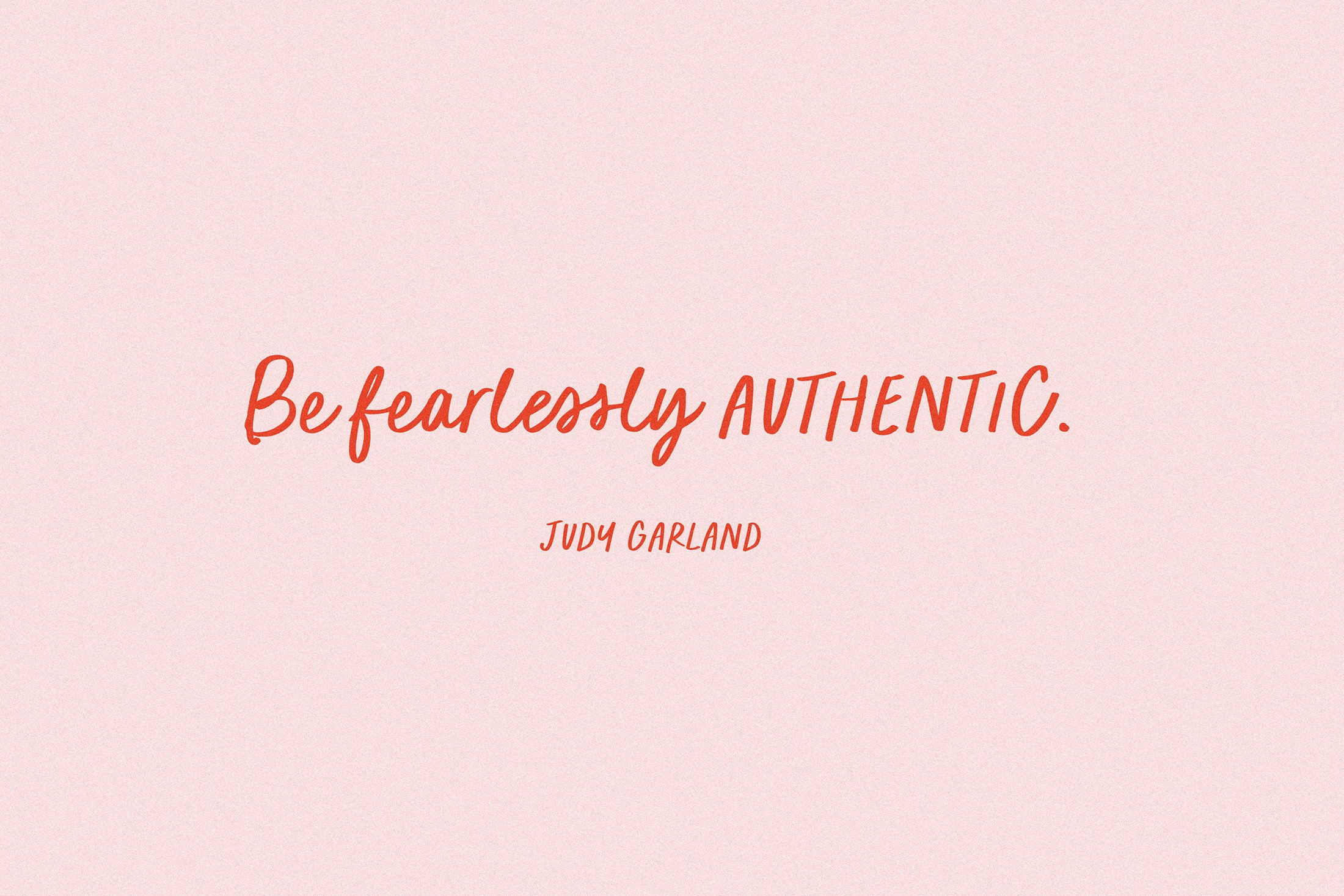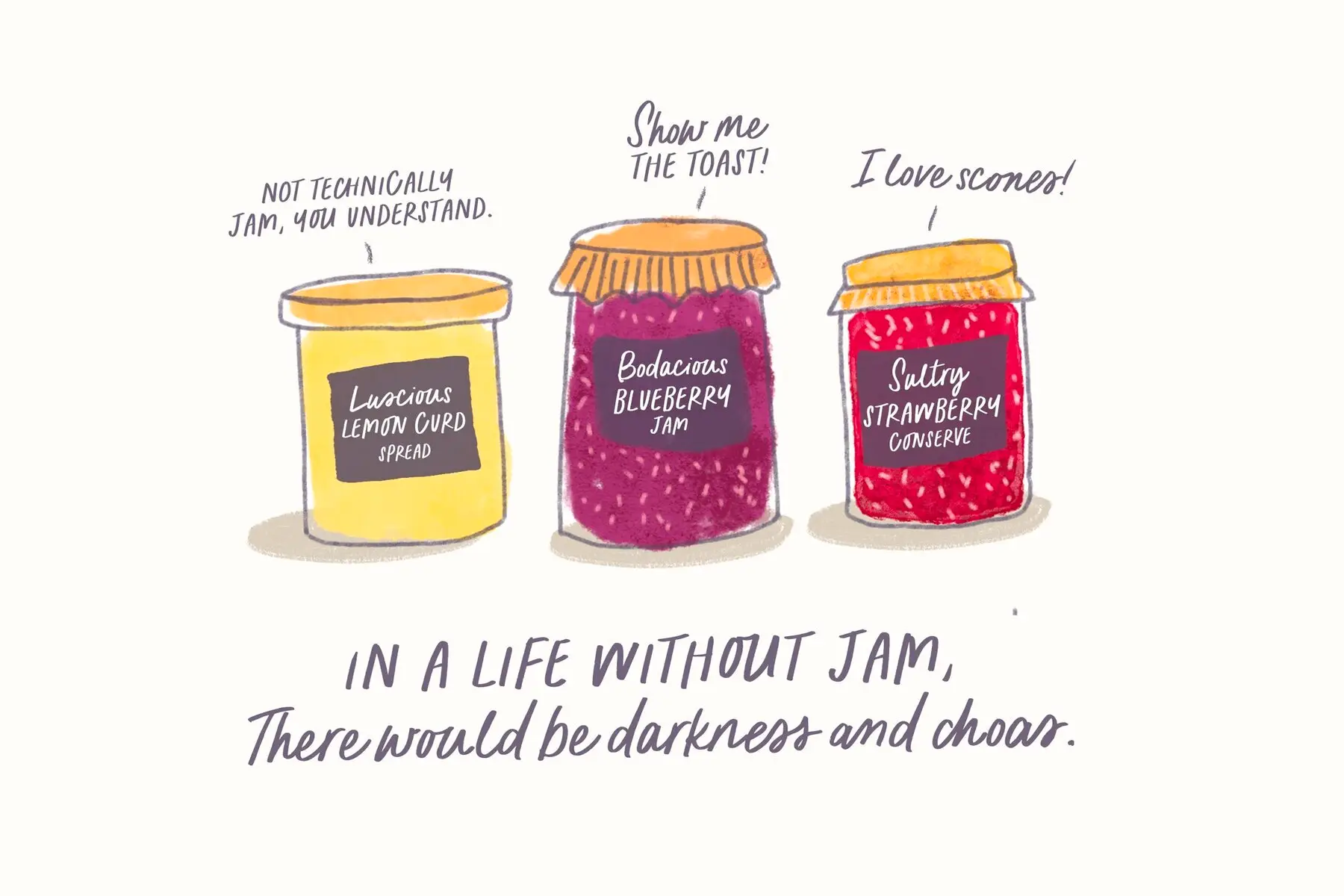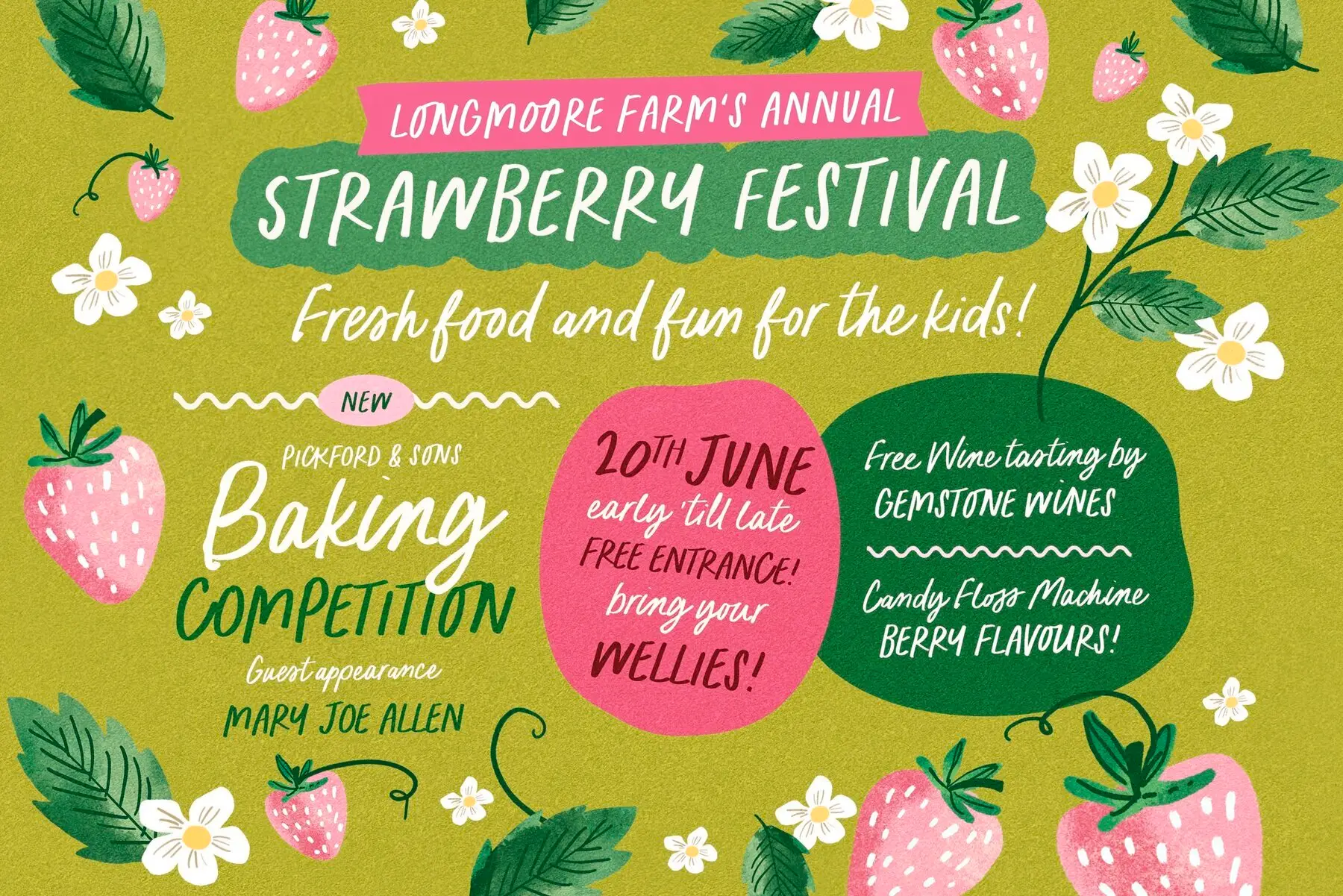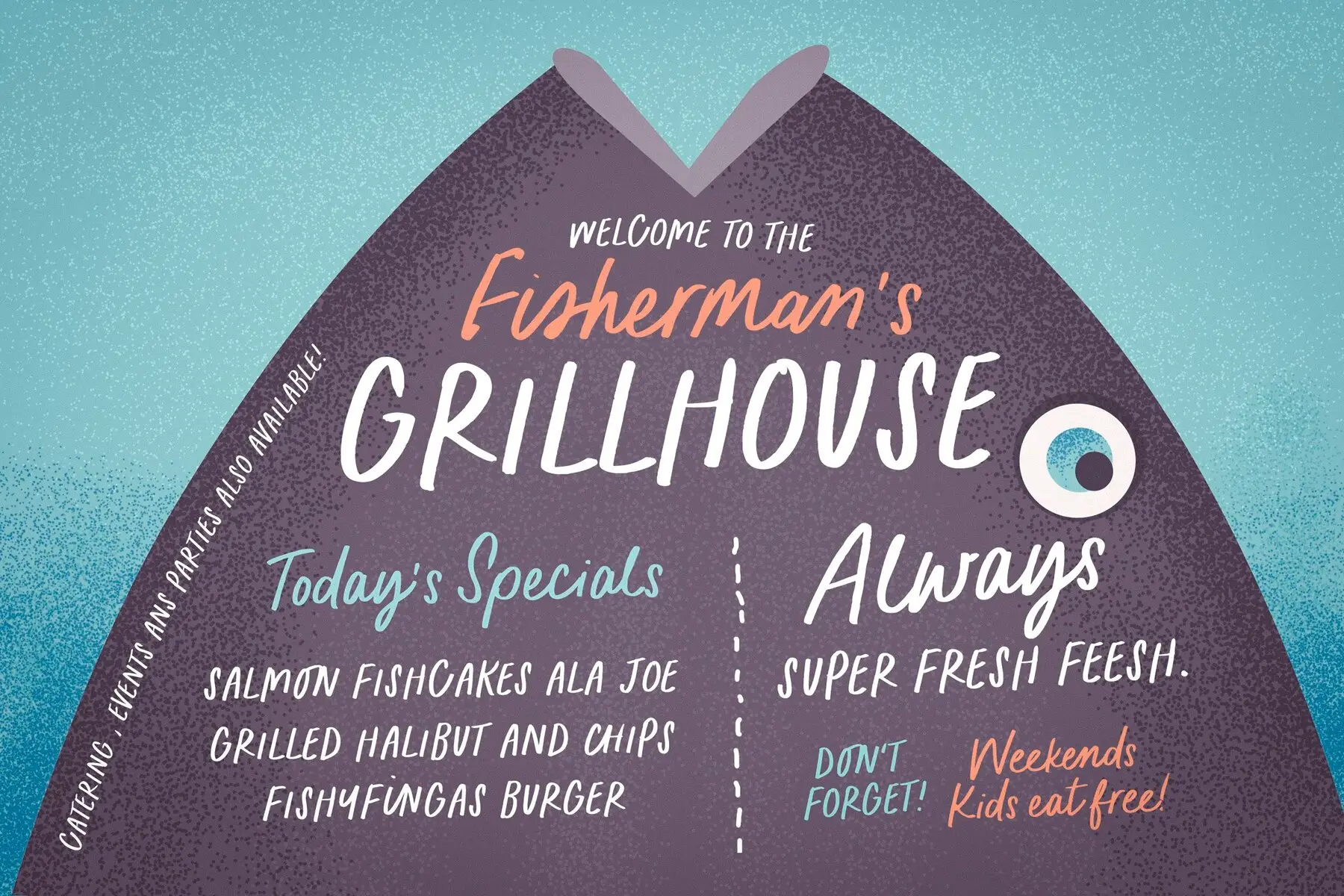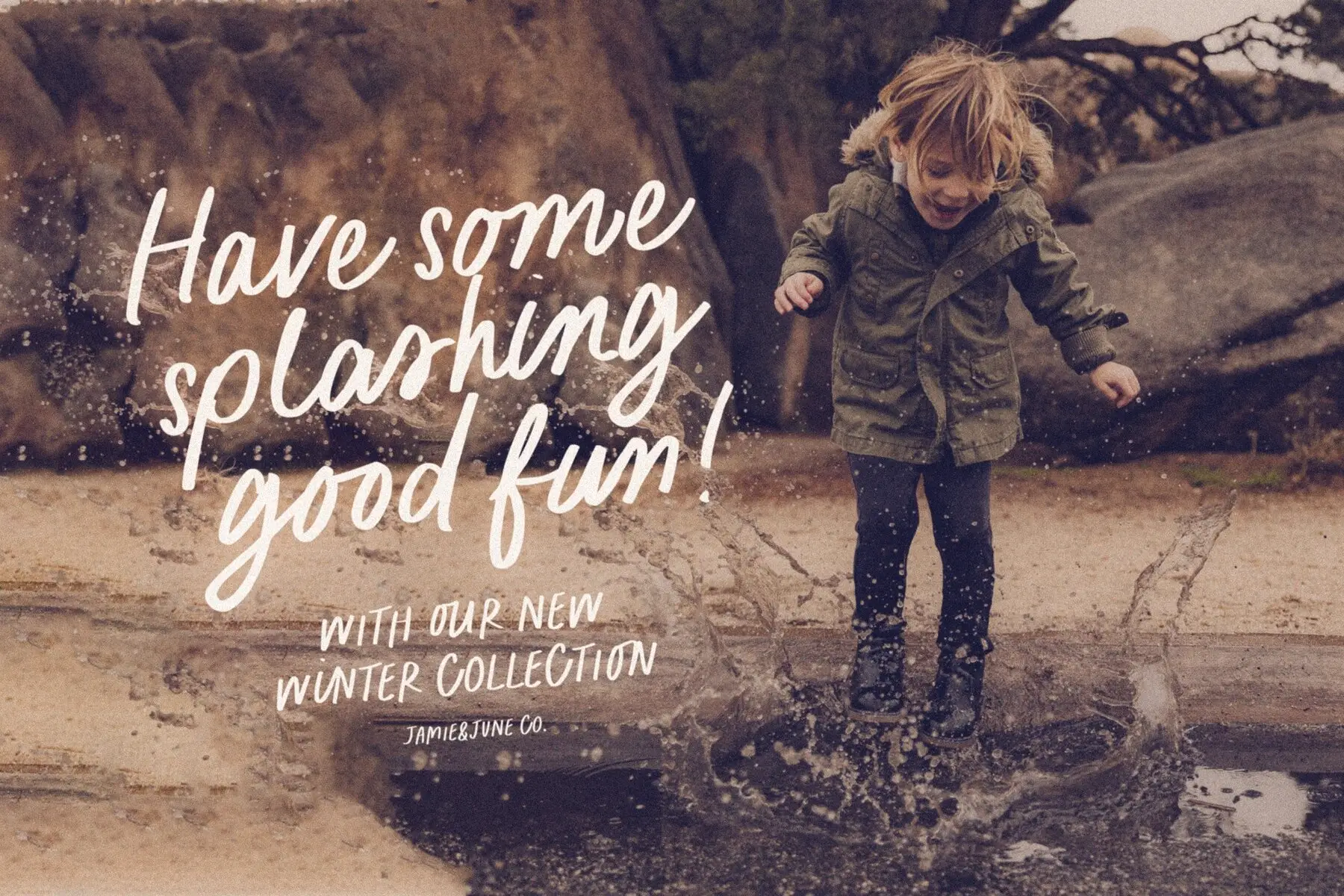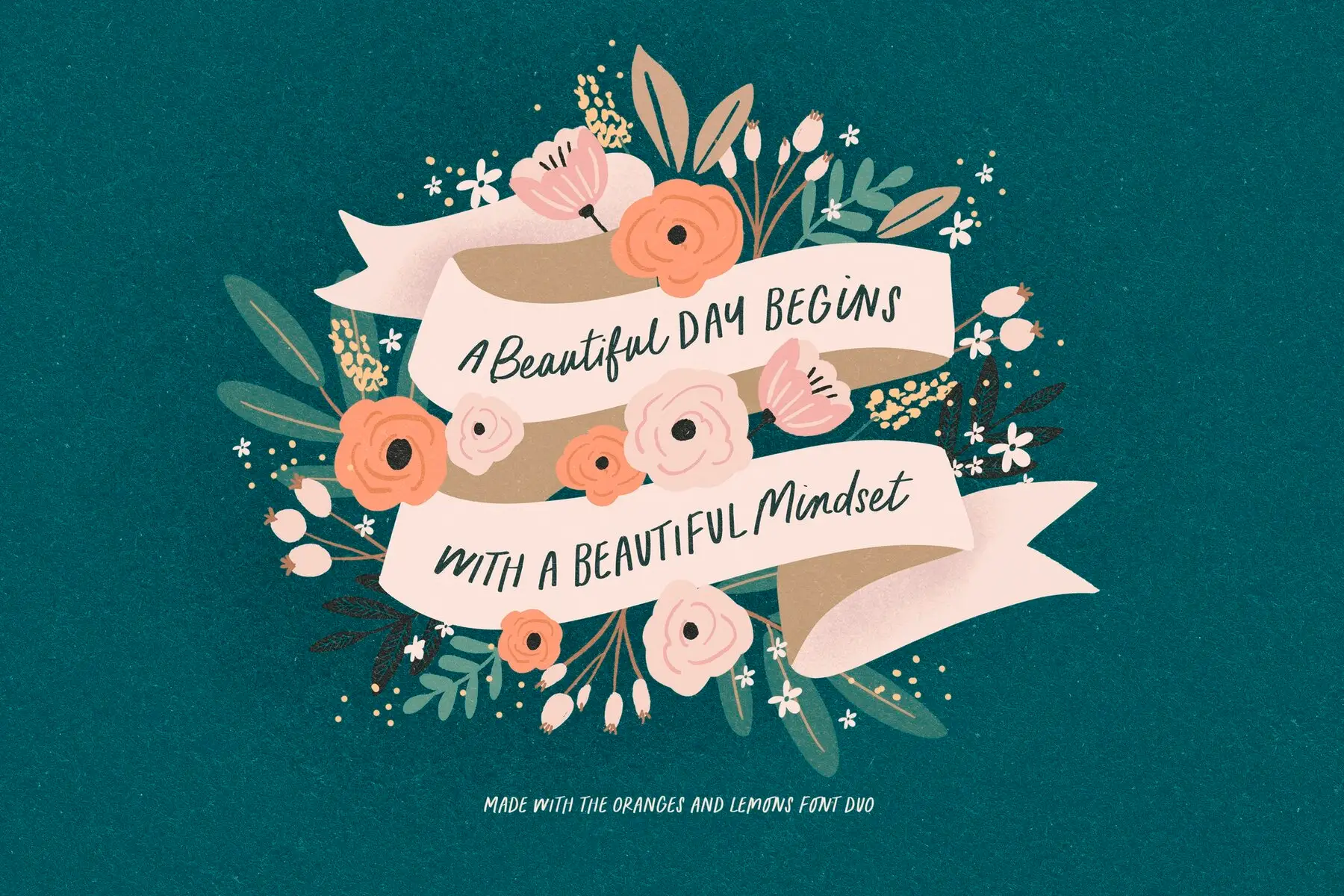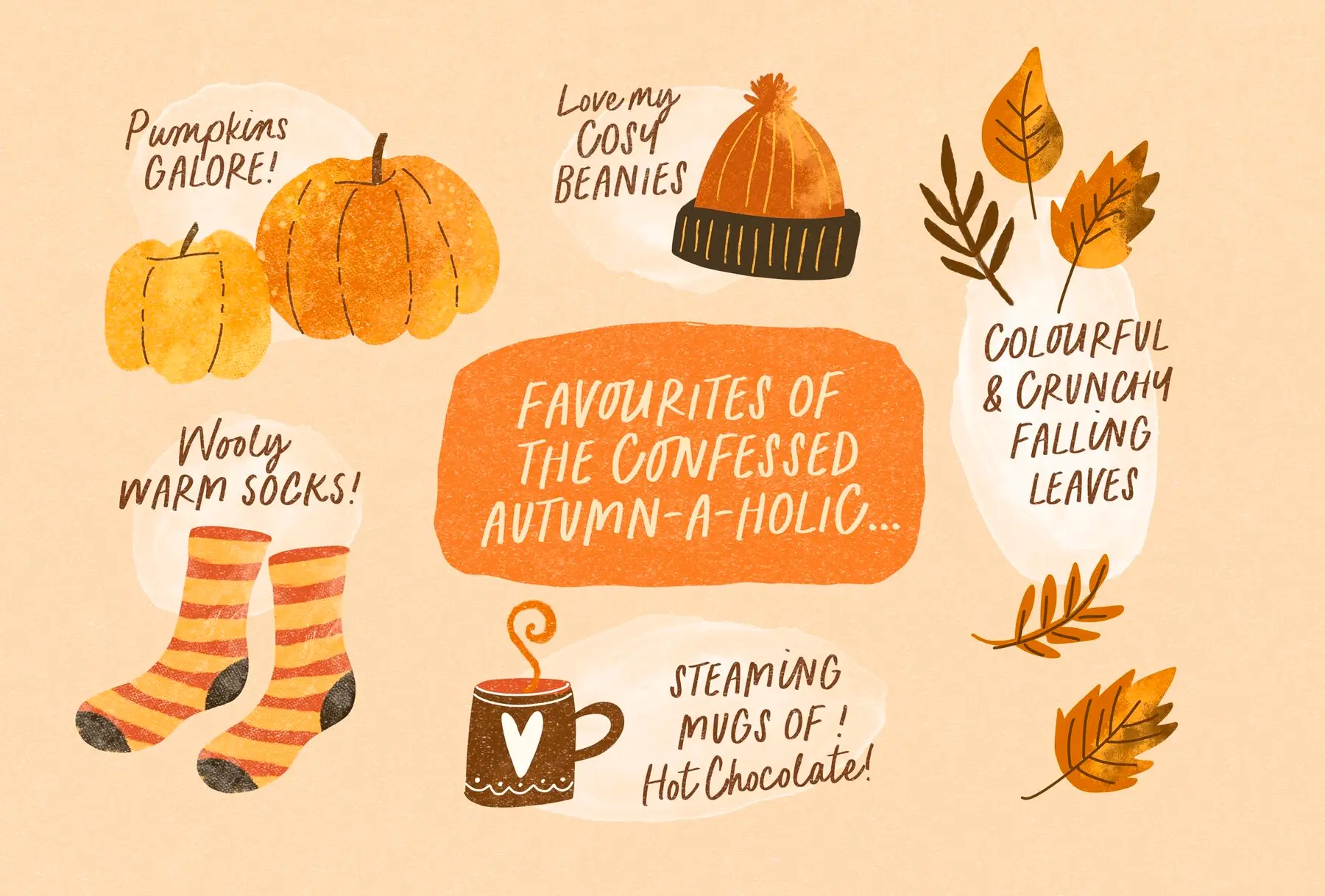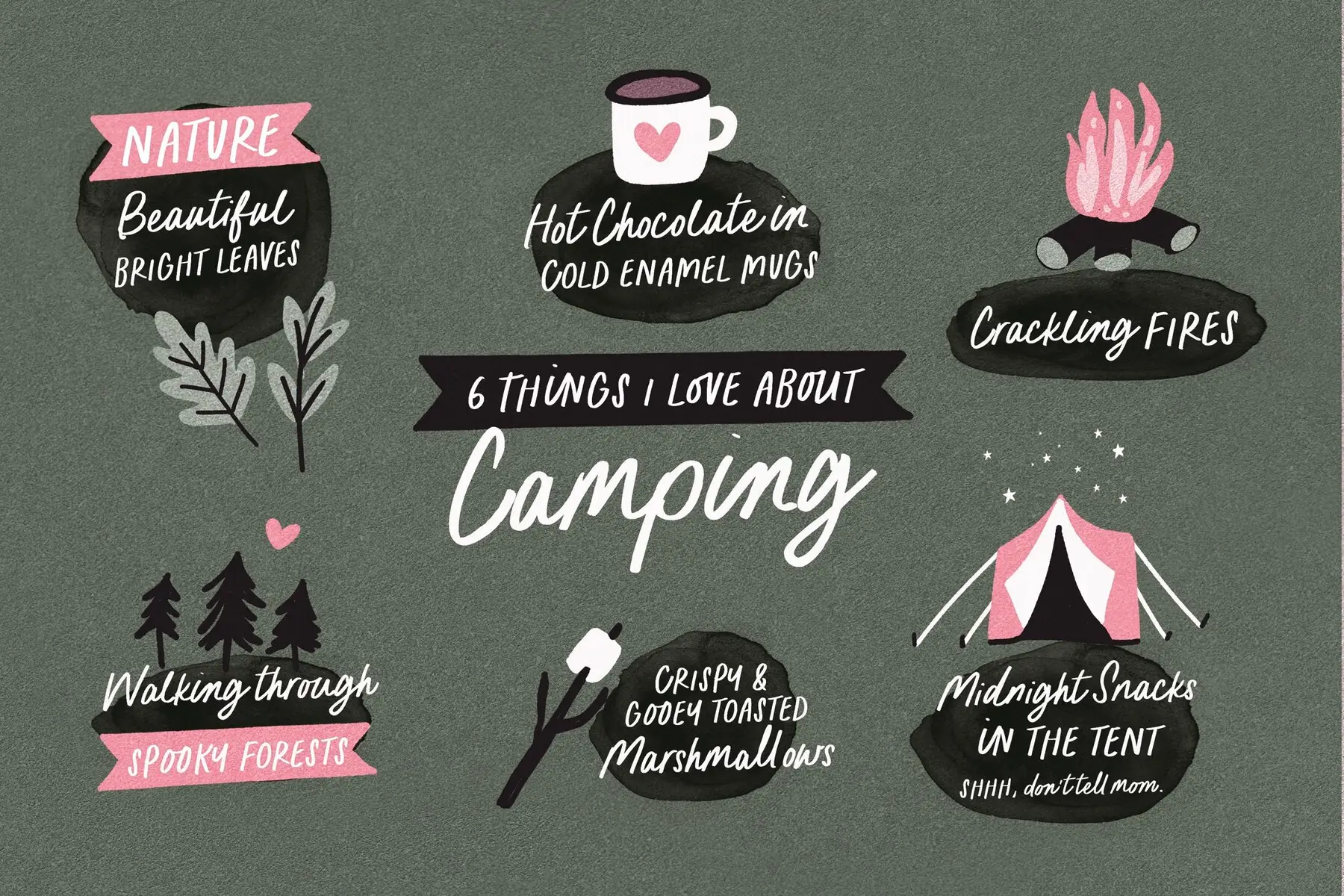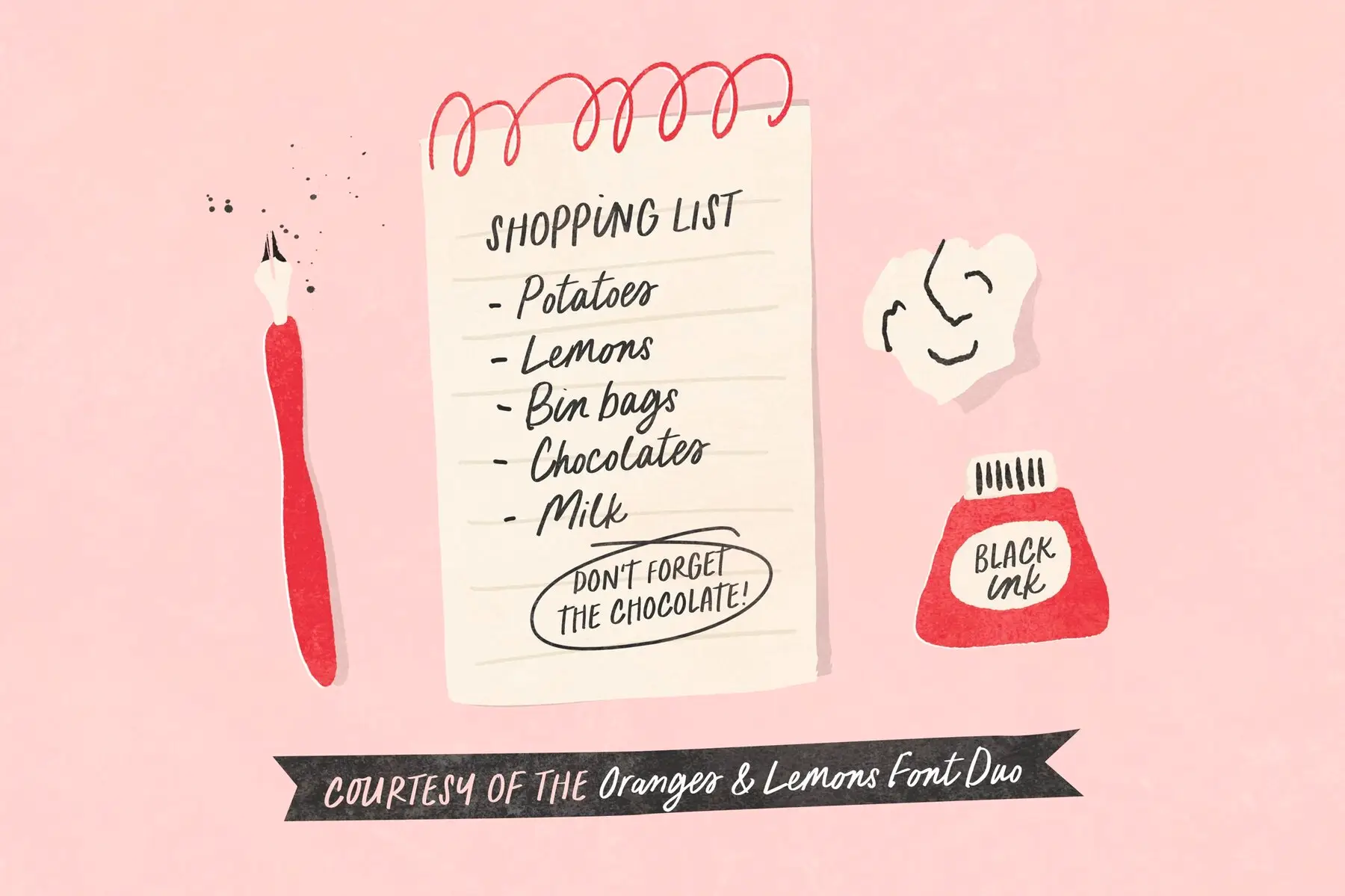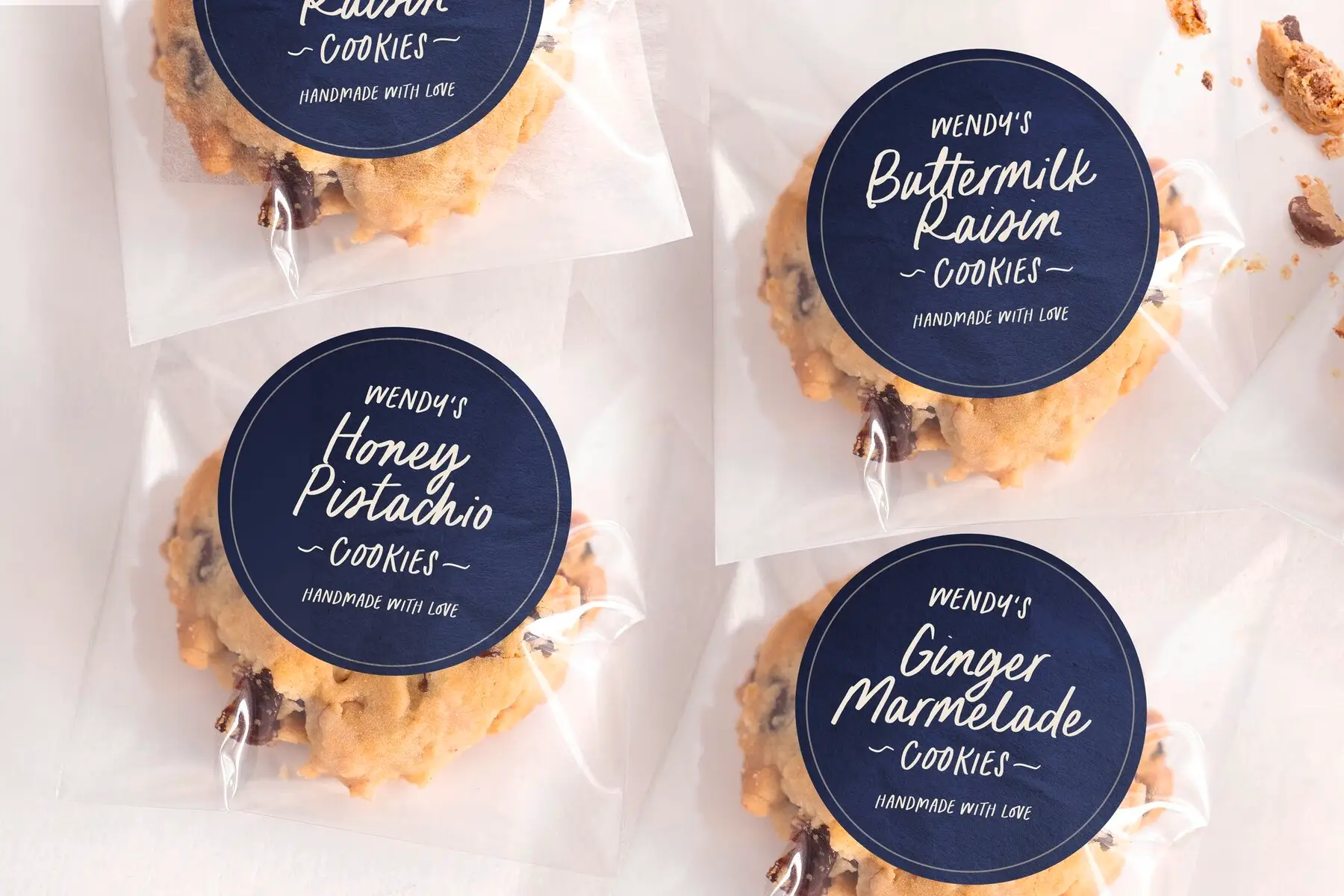
Oranges And Lemons Font . allow us to introduce oranges and lemons, the delightful duo that combines sweet charm with effortless. Click to find the best 2 free fonts in the lemons oranges style. Every font is free to. looking for lemons oranges fonts? The oranges & lemons font duo is a great choice for lovely greeting card designs as well as a good companion to illustrations. Perfect for casual type in greeting cards, illustrations, quotes,.
Click to find the best 2 free fonts in the lemons oranges style. The oranges & lemons font duo is a great choice for lovely greeting card designs as well as a good companion to illustrations. Every font is free to. Perfect for casual type in greeting cards, illustrations, quotes,. looking for lemons oranges fonts? allow us to introduce oranges and lemons, the delightful duo that combines sweet charm with effortless.
Oranges And Lemons Font Click to find the best 2 free fonts in the lemons oranges style. looking for lemons oranges fonts? allow us to introduce oranges and lemons, the delightful duo that combines sweet charm with effortless. Click to find the best 2 free fonts in the lemons oranges style. The oranges & lemons font duo is a great choice for lovely greeting card designs as well as a good companion to illustrations. Perfect for casual type in greeting cards, illustrations, quotes,. Every font is free to.
Oranges & Lemons Font Duo, a Script Font by Nicky Laatz Hand Oranges And Lemons Font Every font is free to. Click to find the best 2 free fonts in the lemons oranges style. allow us to introduce oranges and lemons, the delightful duo that combines sweet charm with effortless. looking for lemons oranges fonts? Perfect for casual type in greeting cards, illustrations, quotes,. The oranges & lemons font duo is a great choice. Oranges And Lemons Font.
Oranges and Lemons The Delightful Duo of Handlettered Fonts Oranges And Lemons Font allow us to introduce oranges and lemons, the delightful duo that combines sweet charm with effortless. looking for lemons oranges fonts? The oranges & lemons font duo is a great choice for lovely greeting card designs as well as a good companion to illustrations. Click to find the best 2 free fonts in the lemons oranges style. Perfect. Oranges And Lemons Font.
Oranges and Lemons The Delightful Duo of Handlettered Fonts Oranges And Lemons Font looking for lemons oranges fonts? Perfect for casual type in greeting cards, illustrations, quotes,. The oranges & lemons font duo is a great choice for lovely greeting card designs as well as a good companion to illustrations. allow us to introduce oranges and lemons, the delightful duo that combines sweet charm with effortless. Every font is free to.. Oranges And Lemons Font.
Oranges and Lemons The Delightful Duo of Handlettered Fonts Oranges And Lemons Font Every font is free to. looking for lemons oranges fonts? The oranges & lemons font duo is a great choice for lovely greeting card designs as well as a good companion to illustrations. Click to find the best 2 free fonts in the lemons oranges style. Perfect for casual type in greeting cards, illustrations, quotes,. allow us to. Oranges And Lemons Font.
Oranges and Lemons The Delightful Duo of Handlettered Fonts Oranges And Lemons Font looking for lemons oranges fonts? Every font is free to. Click to find the best 2 free fonts in the lemons oranges style. The oranges & lemons font duo is a great choice for lovely greeting card designs as well as a good companion to illustrations. allow us to introduce oranges and lemons, the delightful duo that combines. Oranges And Lemons Font.
Oranges and Lemons The Delightful Duo of Handlettered Fonts Oranges And Lemons Font The oranges & lemons font duo is a great choice for lovely greeting card designs as well as a good companion to illustrations. Click to find the best 2 free fonts in the lemons oranges style. allow us to introduce oranges and lemons, the delightful duo that combines sweet charm with effortless. Perfect for casual type in greeting cards,. Oranges And Lemons Font.
Oranges and Lemons The Delightful Duo of Handlettered Fonts Oranges And Lemons Font Perfect for casual type in greeting cards, illustrations, quotes,. looking for lemons oranges fonts? Every font is free to. allow us to introduce oranges and lemons, the delightful duo that combines sweet charm with effortless. Click to find the best 2 free fonts in the lemons oranges style. The oranges & lemons font duo is a great choice. Oranges And Lemons Font.